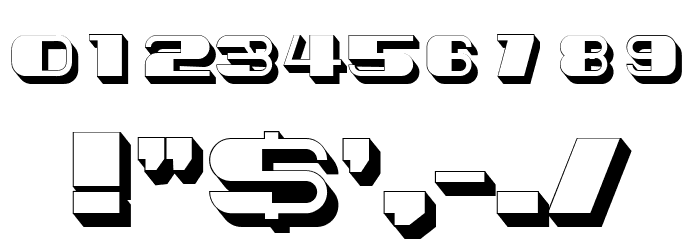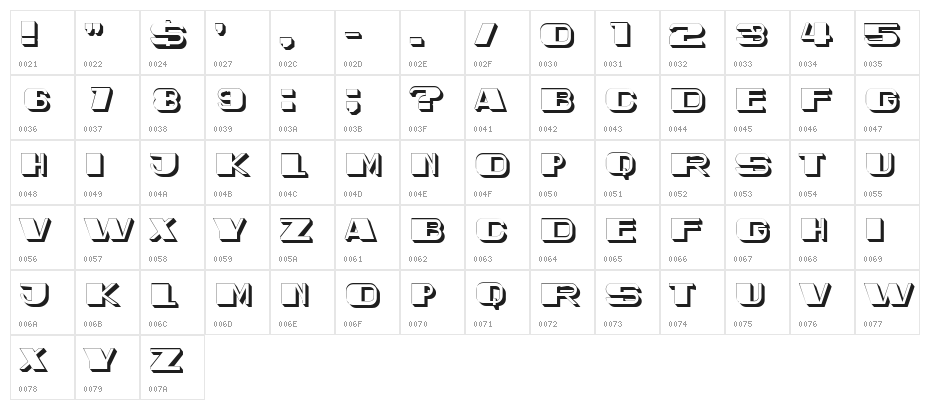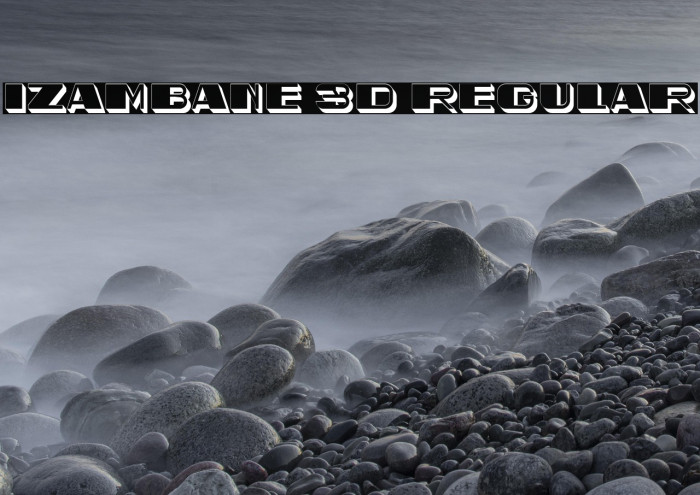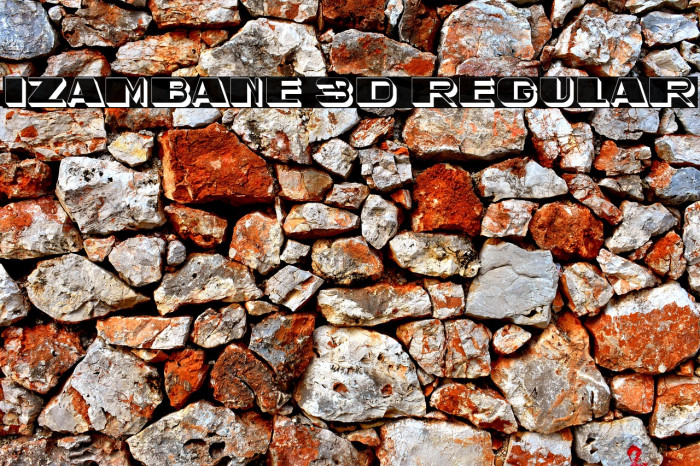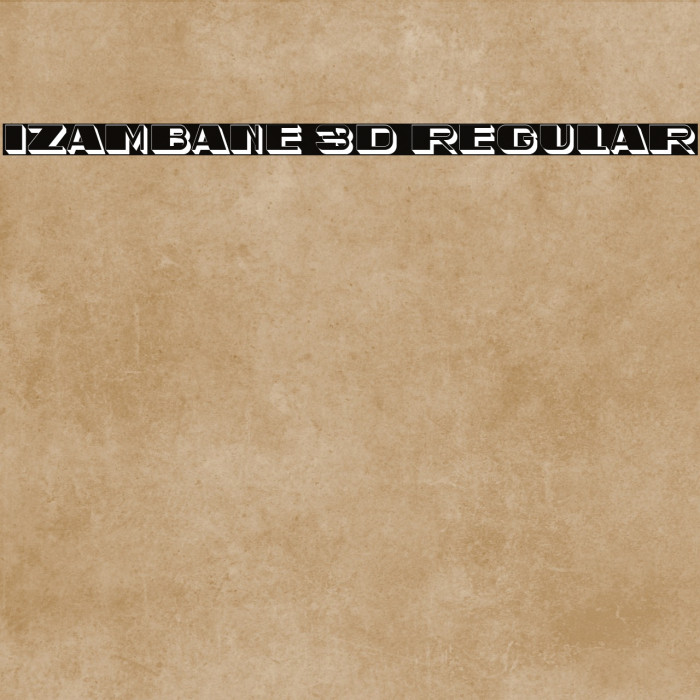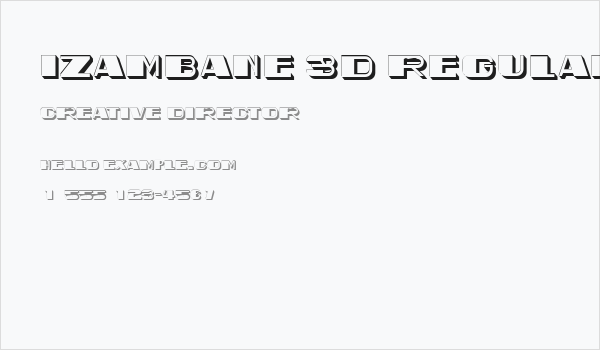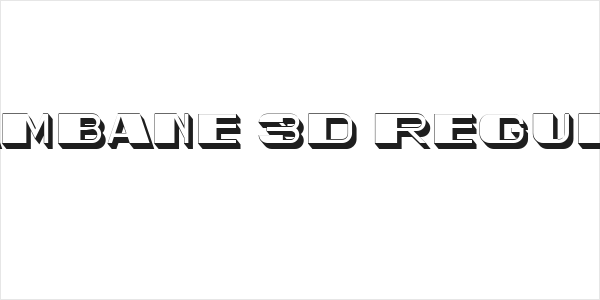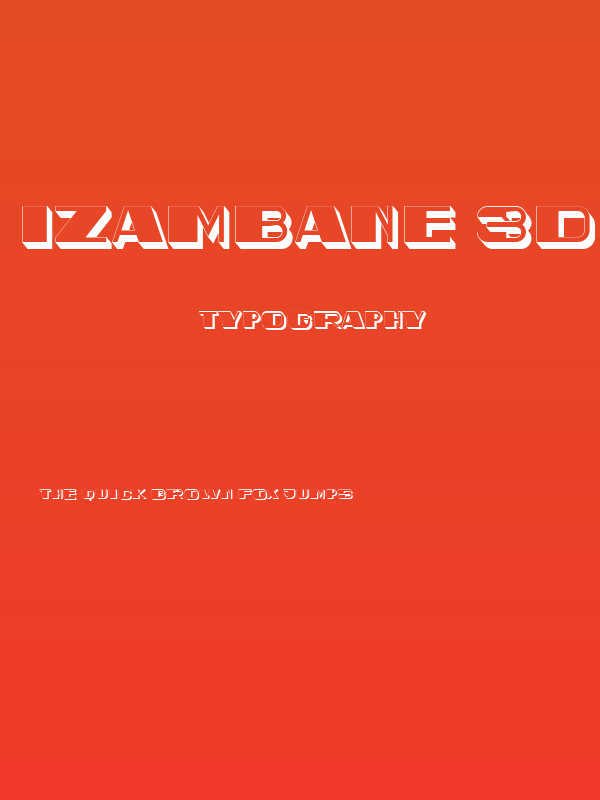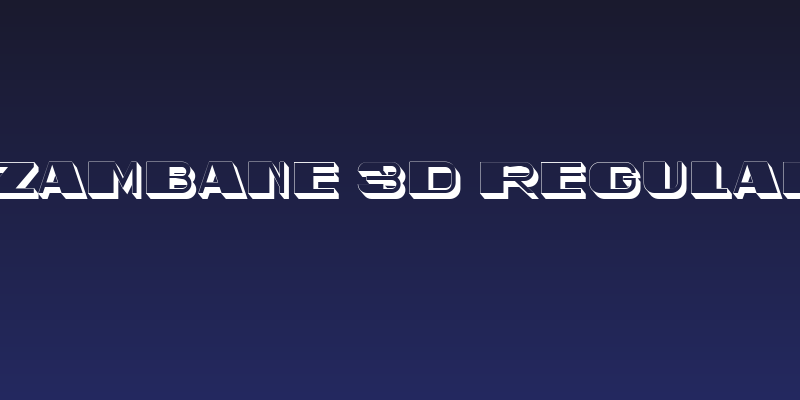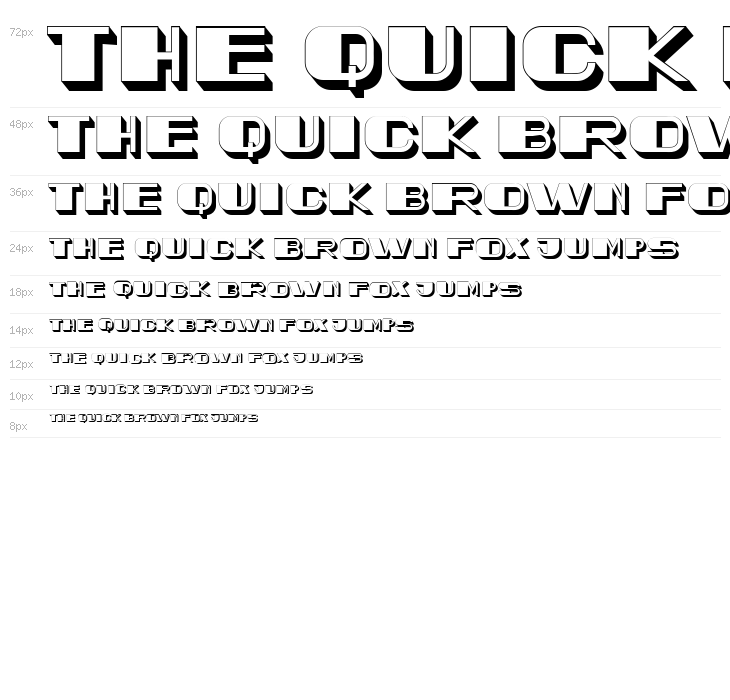
Izambane 3D Regular Font
Izambane 3D Regular Description
This font features a bold, three-dimensional design that gives each character a striking, shadowed appearance. The letters are capitalized and have a blocky, geometric style with sharp edges and a consistent thickness throughout. The 3D effect is achieved through a clever use of shading, creating a sense of depth and dimension. The numbers and special characters follow the same design principles, ensuring a cohesive look across all glyphs. This font is ideal for making a strong visual impact, suitable for projects that require a modern and dynamic aesthetic.
| Proposed Projects | Ideal for posters, headlines, logos, and any design that requires a bold, eye-catching font. |